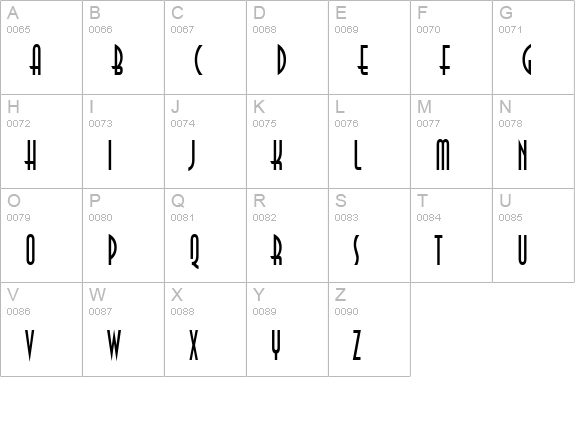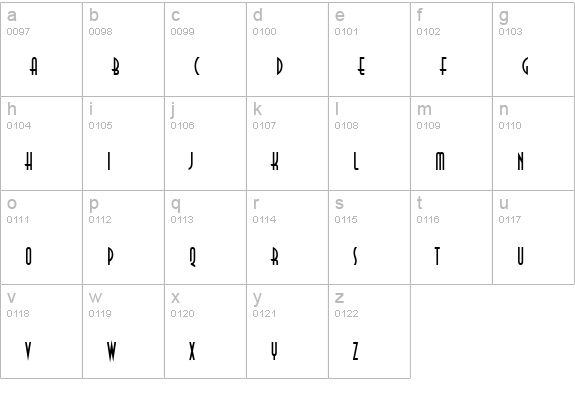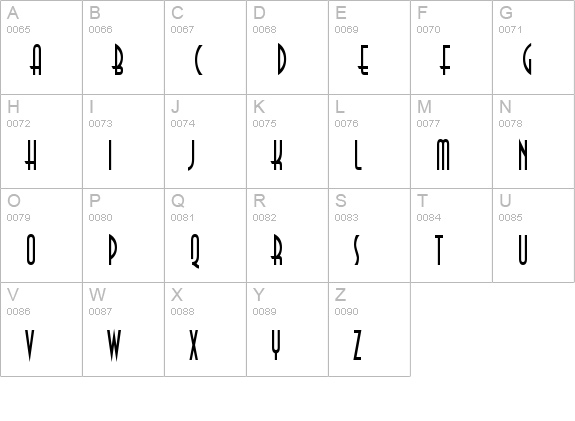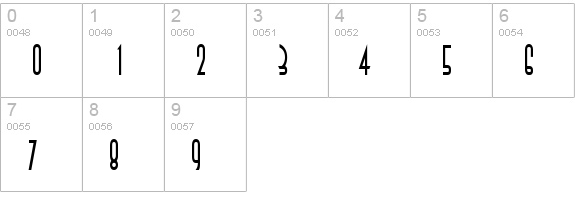
Asia Thin Normal Font Details
Asia Thin Normal is a delicate, low-contrast variant in the Asia typeface family \xE2\x80\x94 well suited to fashion editorial, minimal branding, and high-contrast display.
Asia Thin Normal font is a sleek and elegant typeface that exudes sophistication and modernity. With its thin and streamlined design, this font is perfect for creating a contemporary and stylish look in your projects. The clean lines and delicate curves of Asia Thin Normal font make it an ideal choice for logos, branding, headlines, and more. The best part? Asia Thin Normal font is available for free download at FontsMarket.com. Now you can easily access this versatile font and add a touch of class to your designs without breaking the bank. Don't miss out on this fantastic opportunity to elevate your creative projects with Asia Thin Normal font, completely free of charge. Download it today and start designing with style!